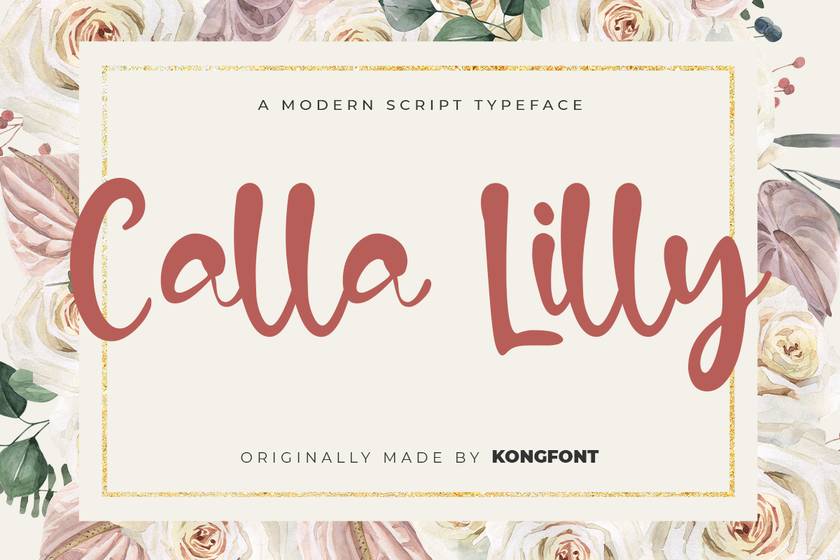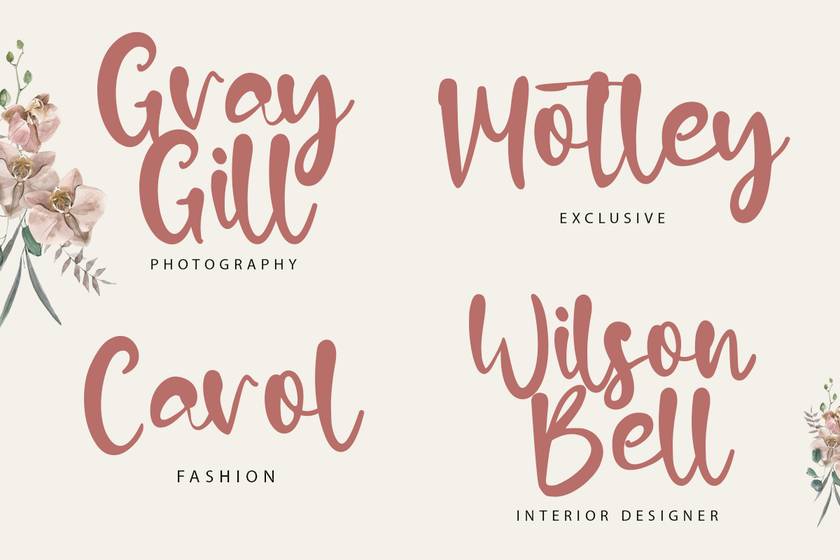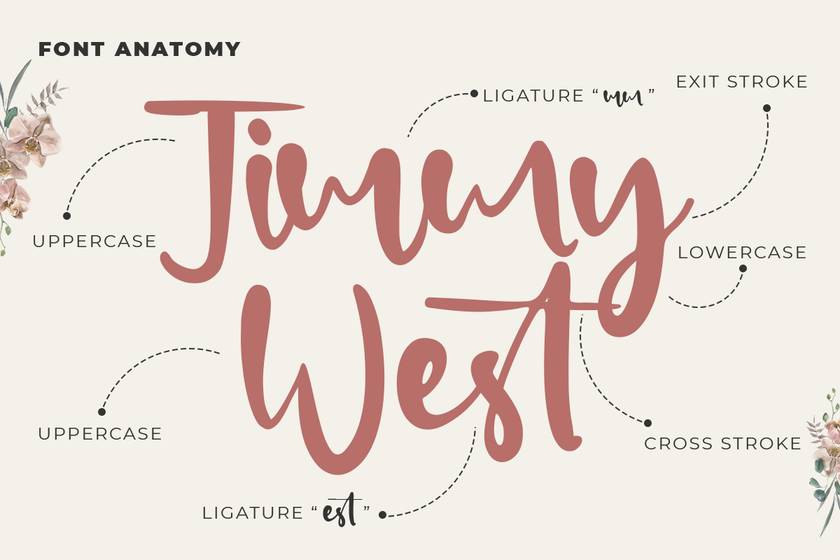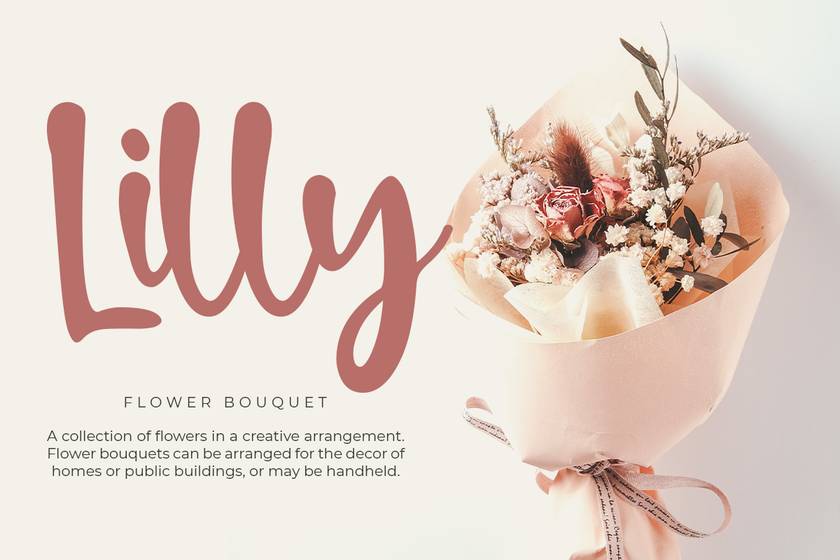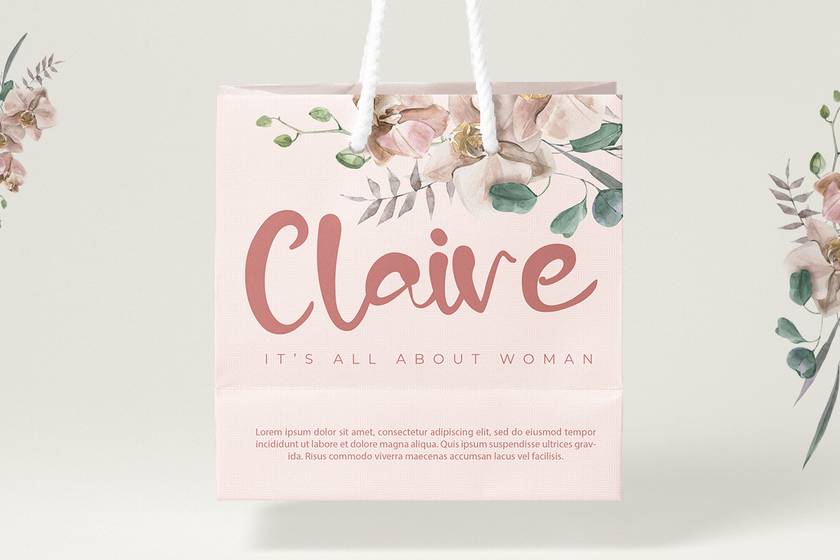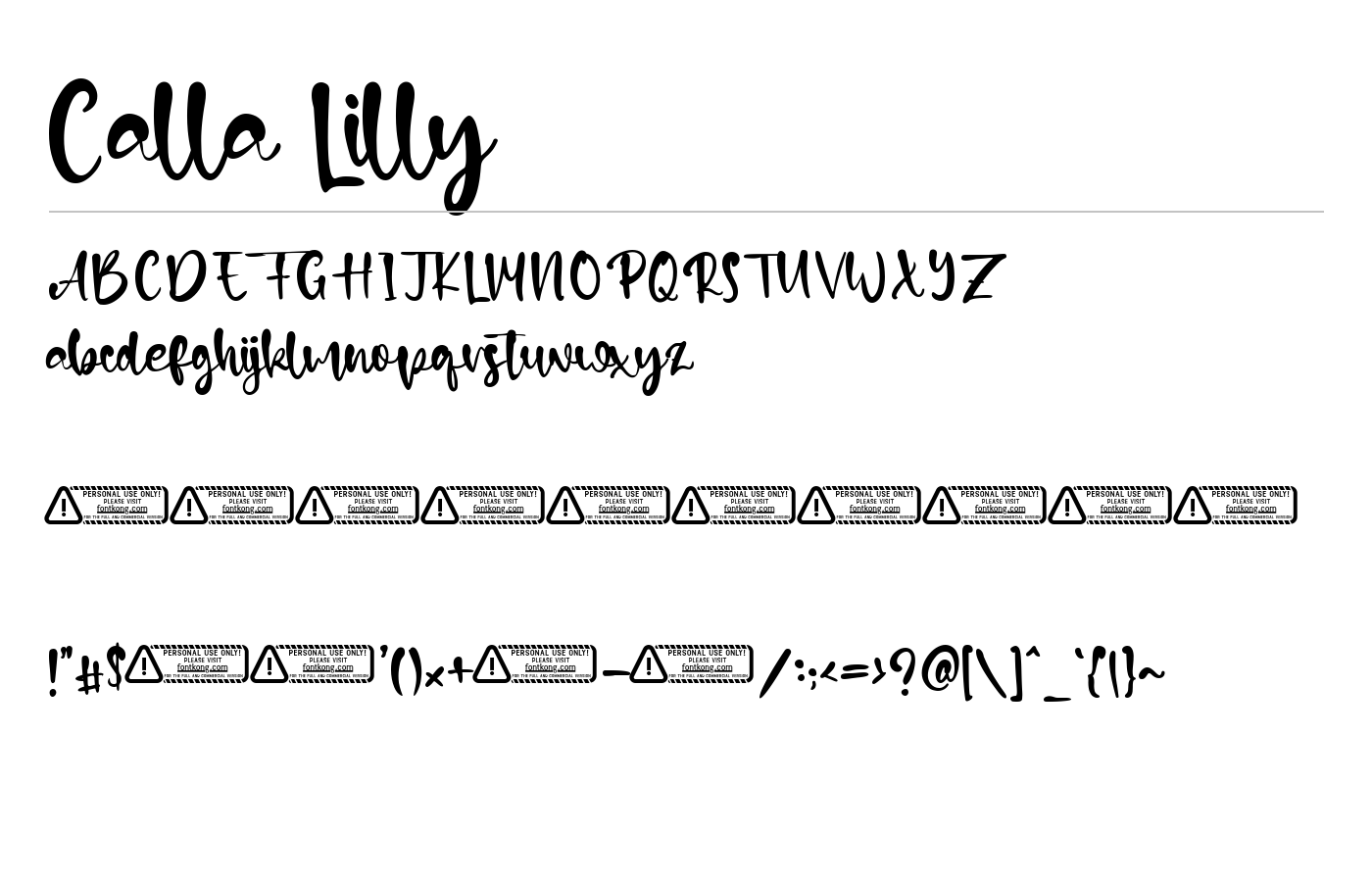
Calla Lilly is a playful and casual handwritten script font with moderate weight and a natural, flowing stroke style. Its lively, slightly uneven letterforms convey a warm and friendly personality, making it perfect for informal branding, invitations, and creative projects that seek a personal touch. This font works well in headlines, logos, and social media where a charming and approachable feel is desired.
Calla Lilly Font
About Calla Lilly Font